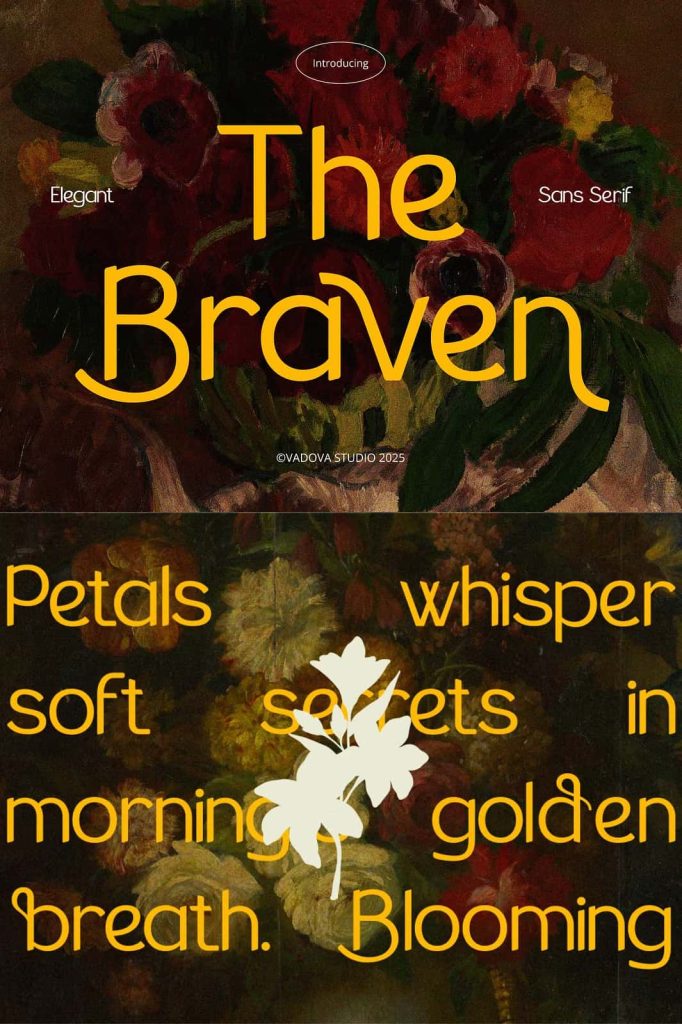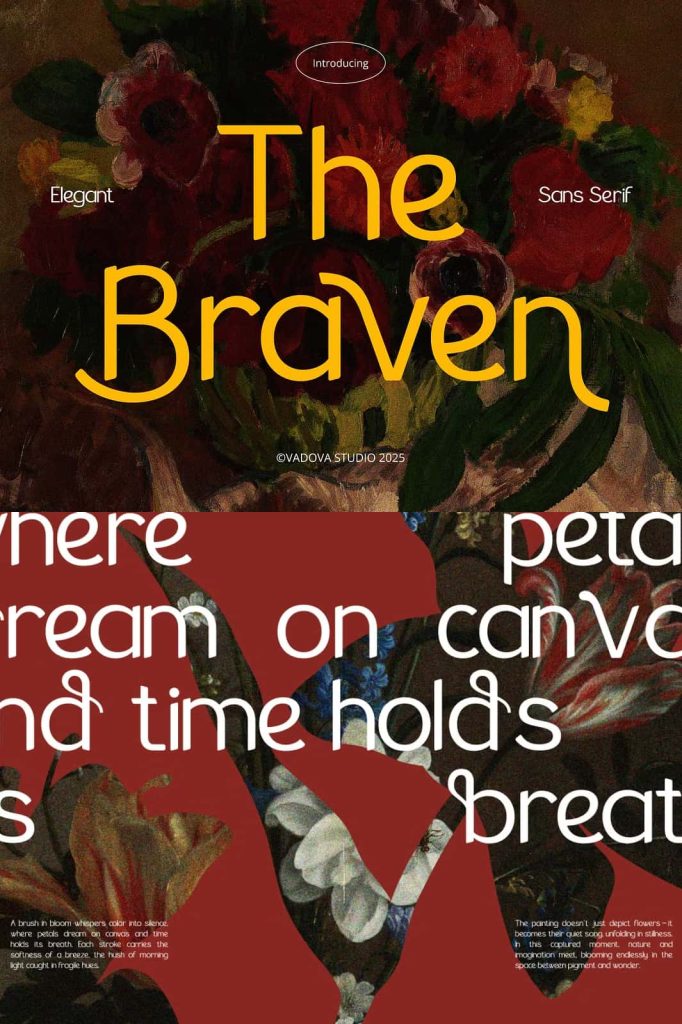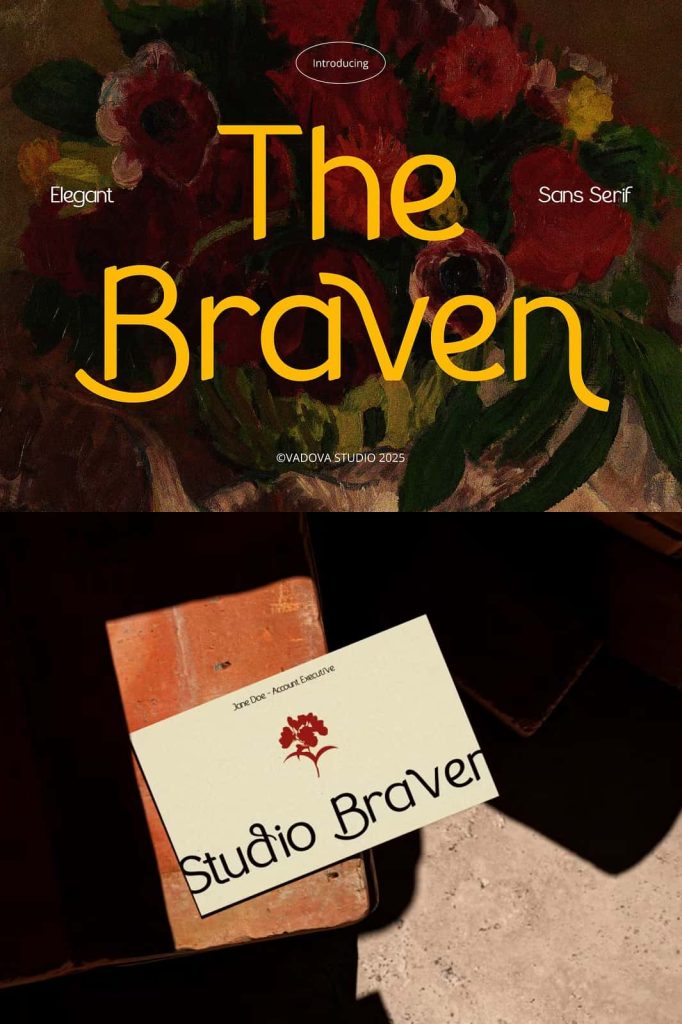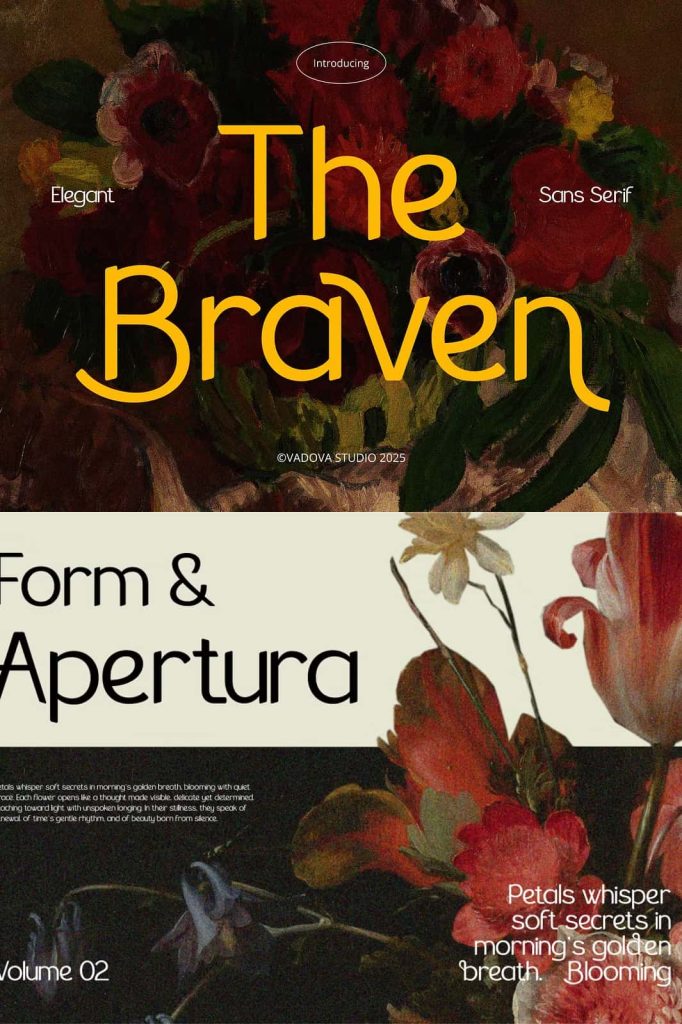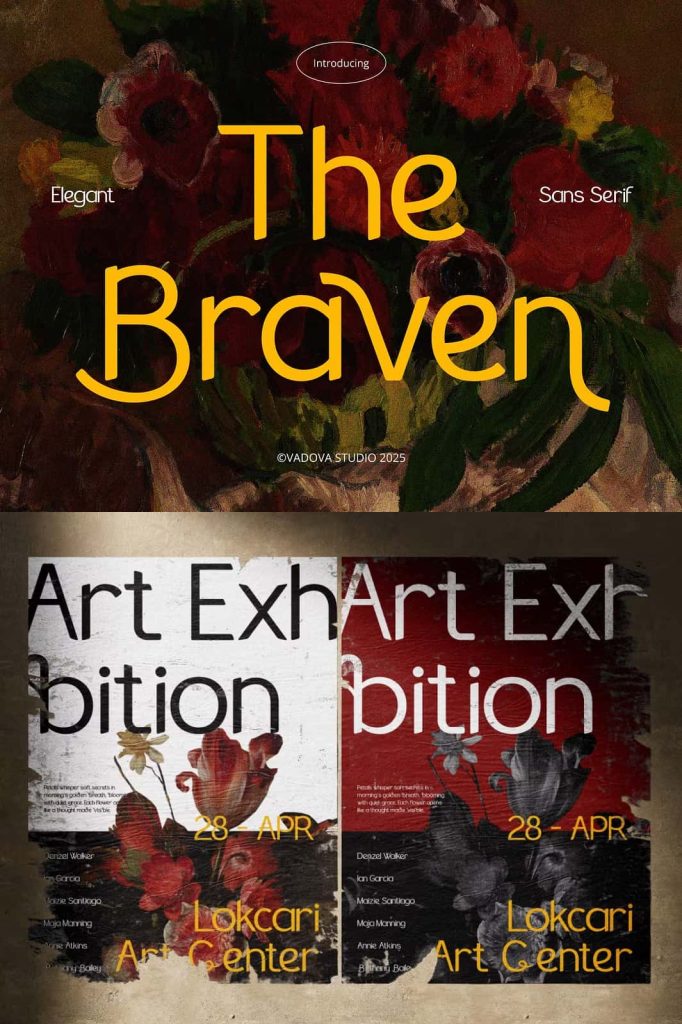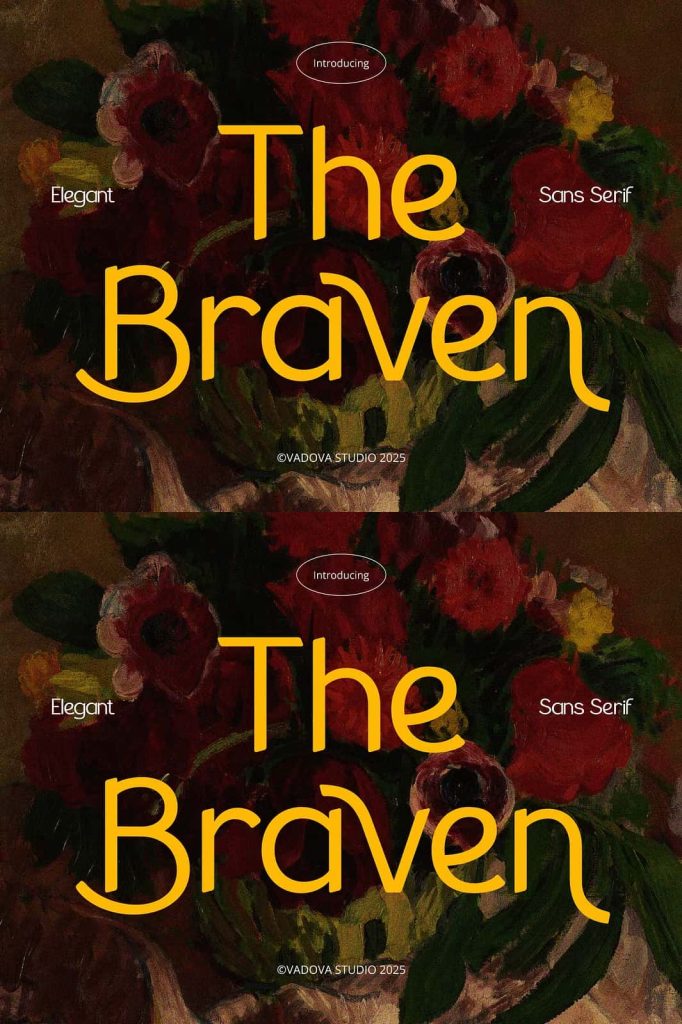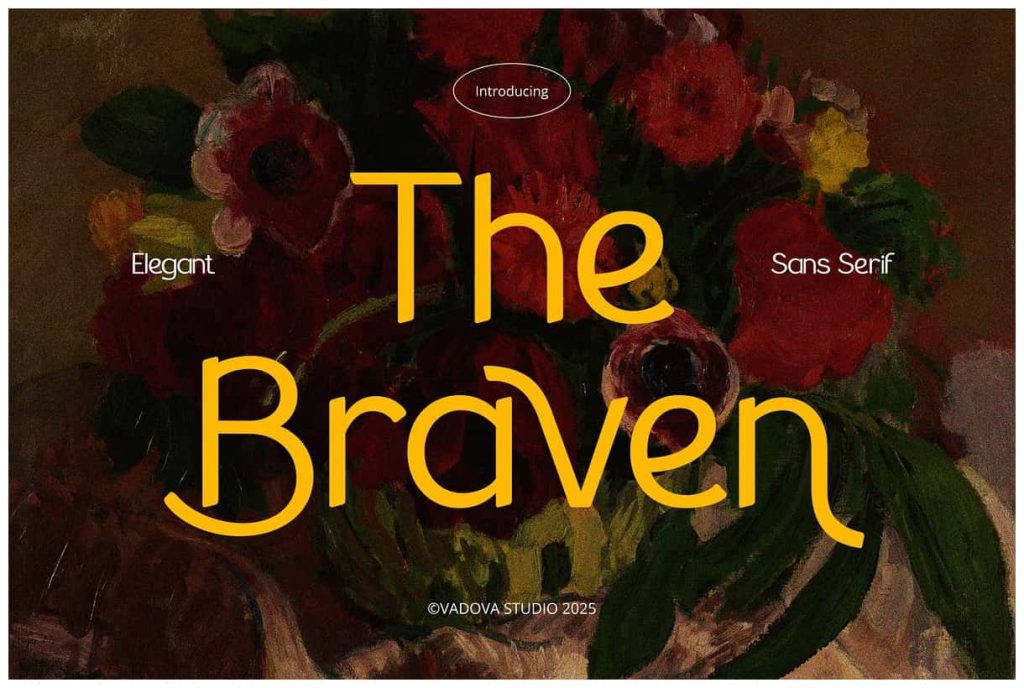
The Braven – Elegant Sans Serif
The Braven is a bold yet elegant sans serif that brings personality and charm into modern typography. Its sleek lines are enhanced with unique curves and subtle artistic details, giving every word a distinctive presence. This typeface strikes the perfect balance between contemporary design and expressive creativity.